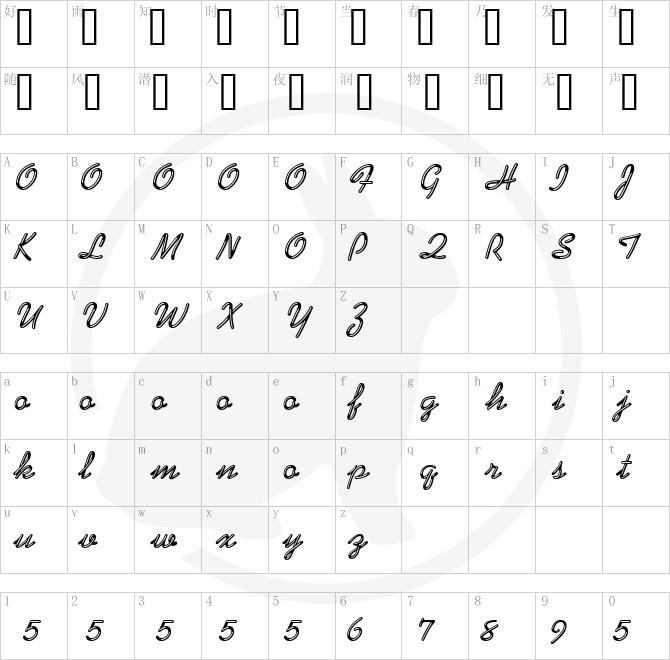
- Font Name:KaffeehausNeon Demo
- Copyright:Kaffeehaus Neon computer font v1.1 ©2001, 2003 Harold Lohner • HLohner@aol.com • http://members.aol.com/fontner Designed along the lines of the classic font KAUFMANN® $5 gets you the full font, with and without highlights.